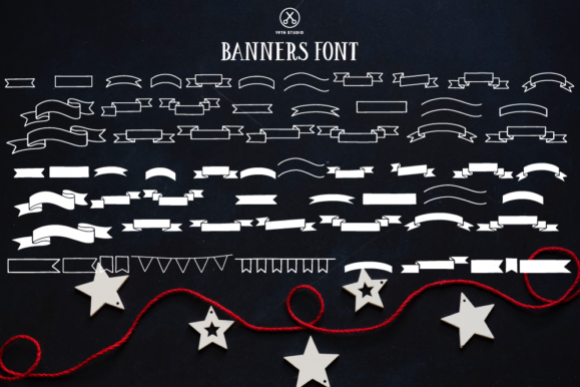
Banners Font
Banners Font by 19thstudio.com
This cute set of banners is perfect for any vintage or retro design; with solid and outlined variations, you have a large array of styles to choose from in this font set.